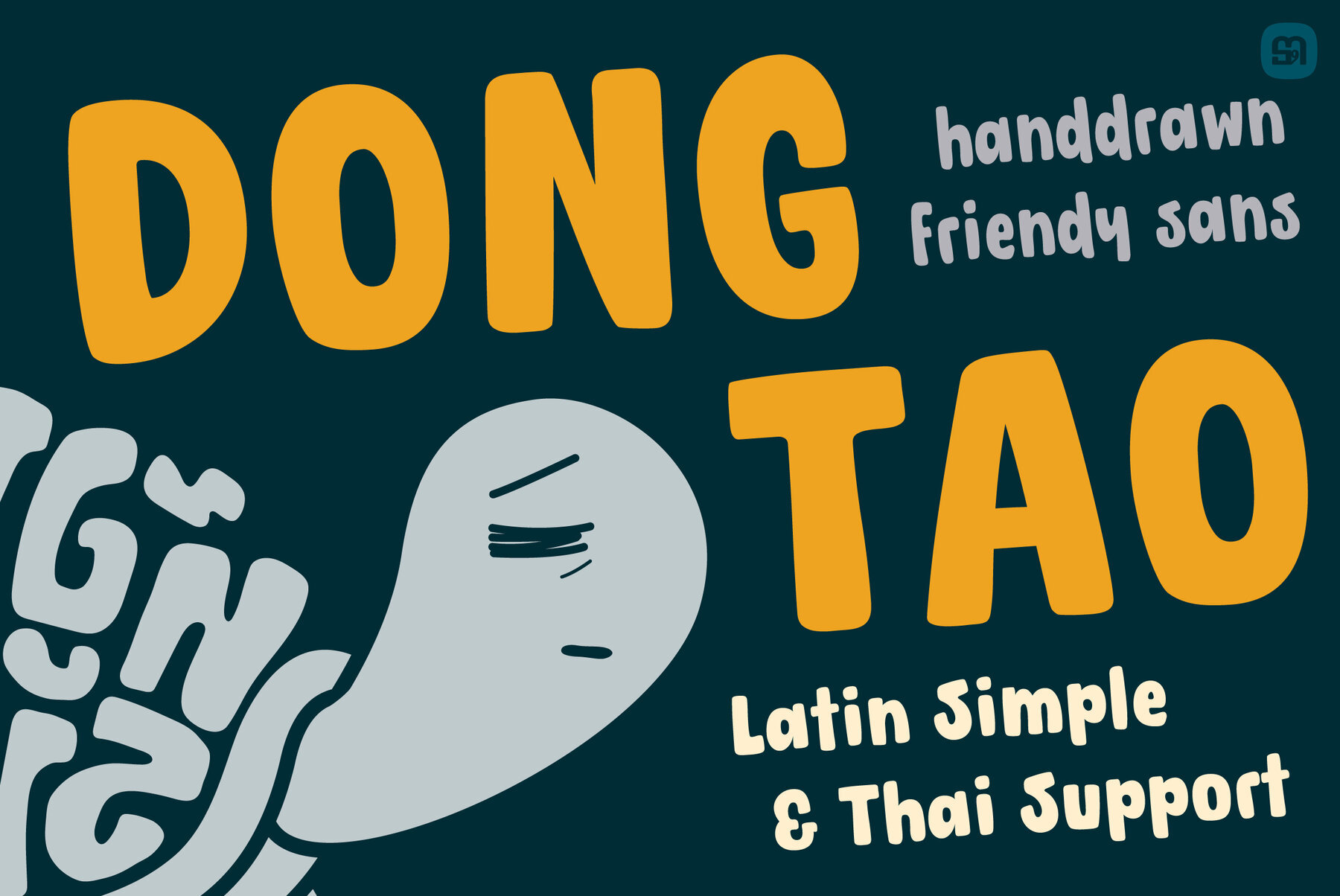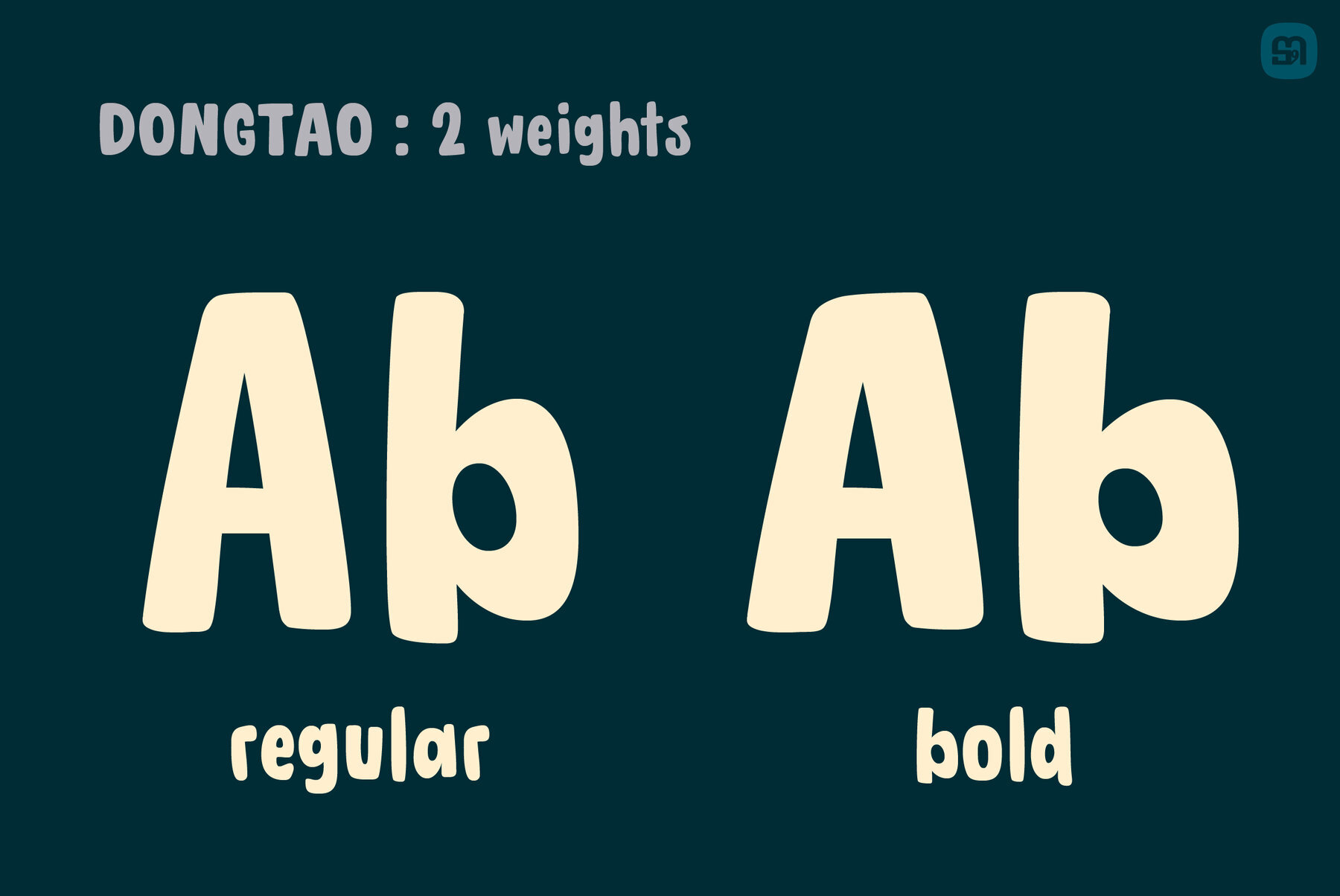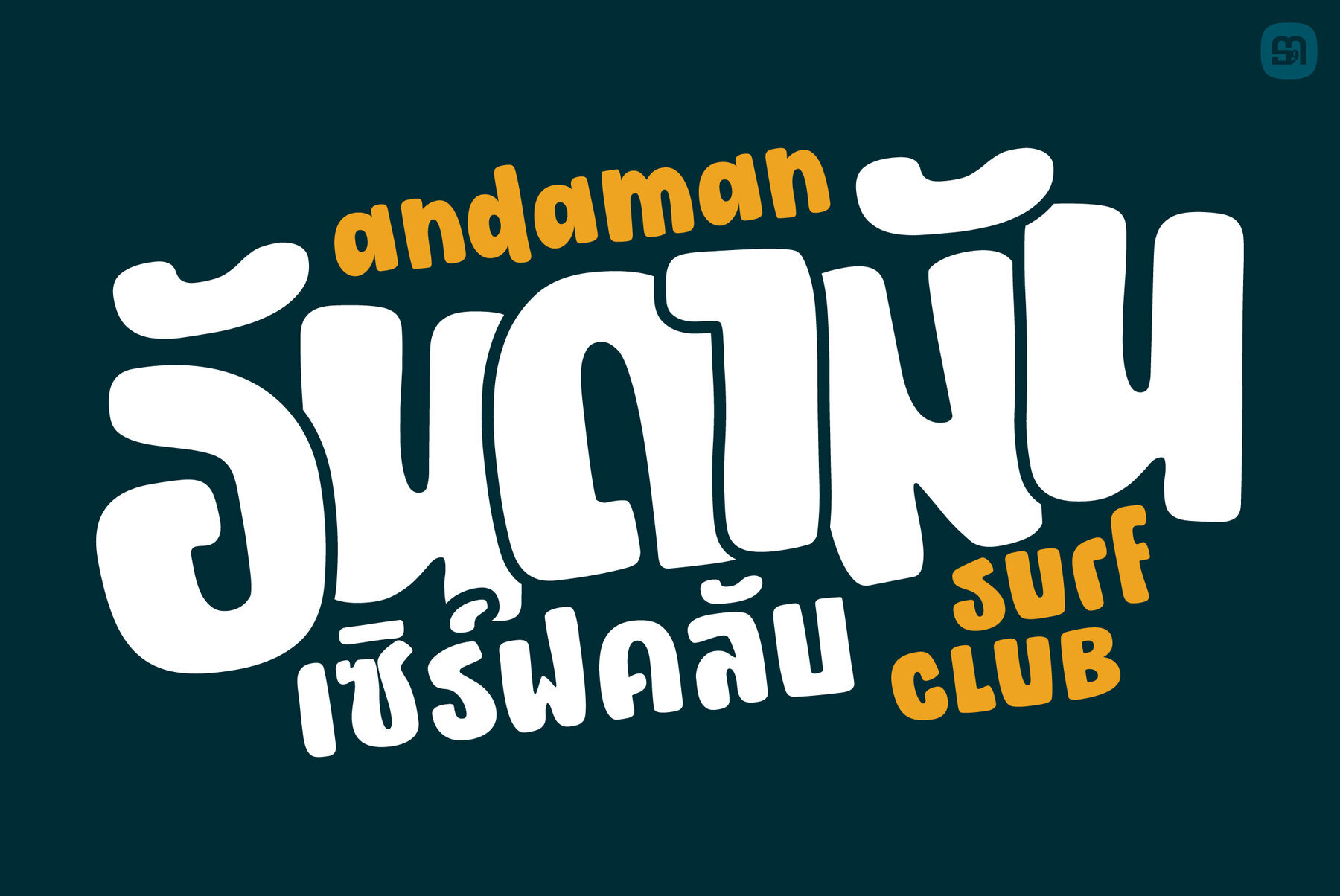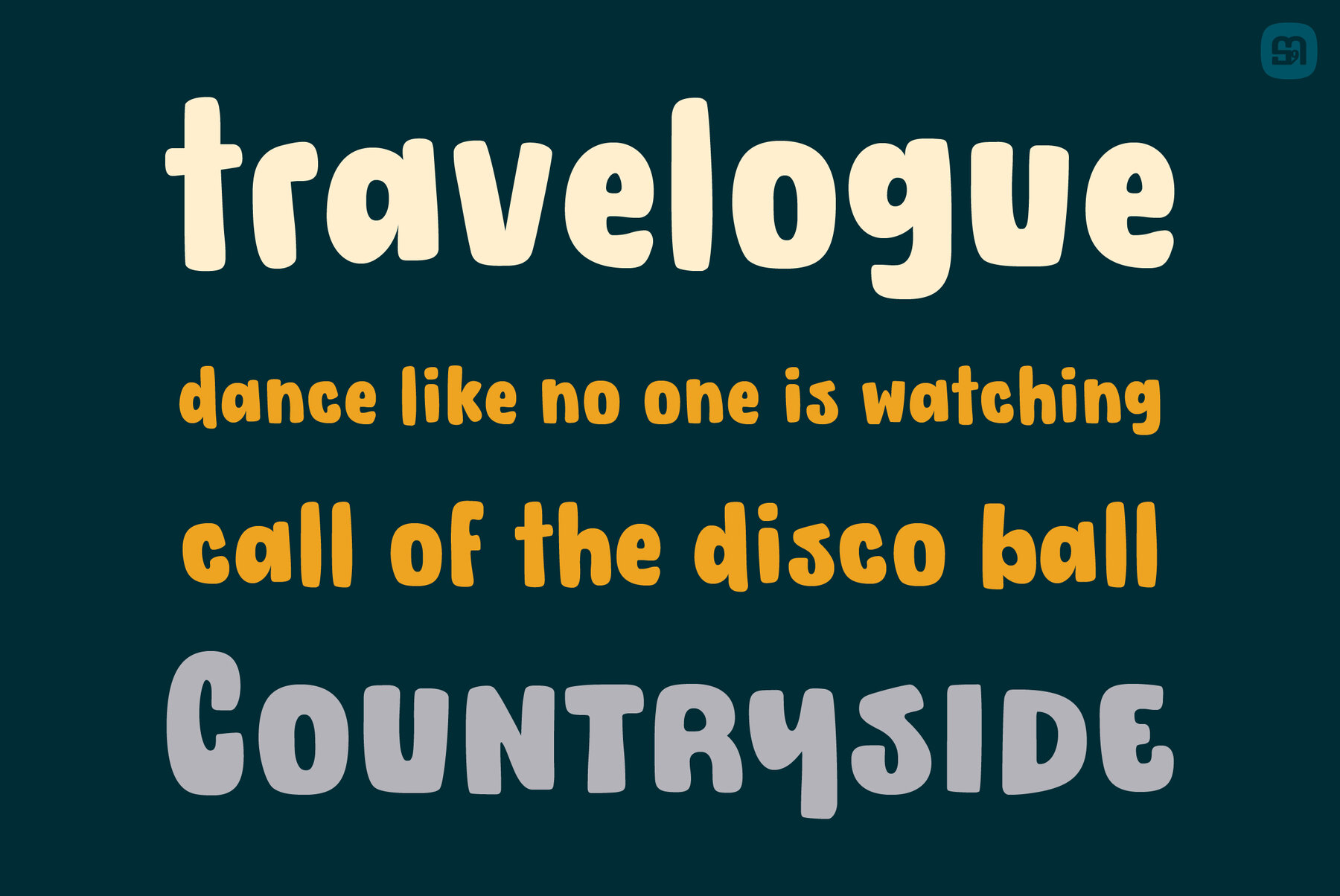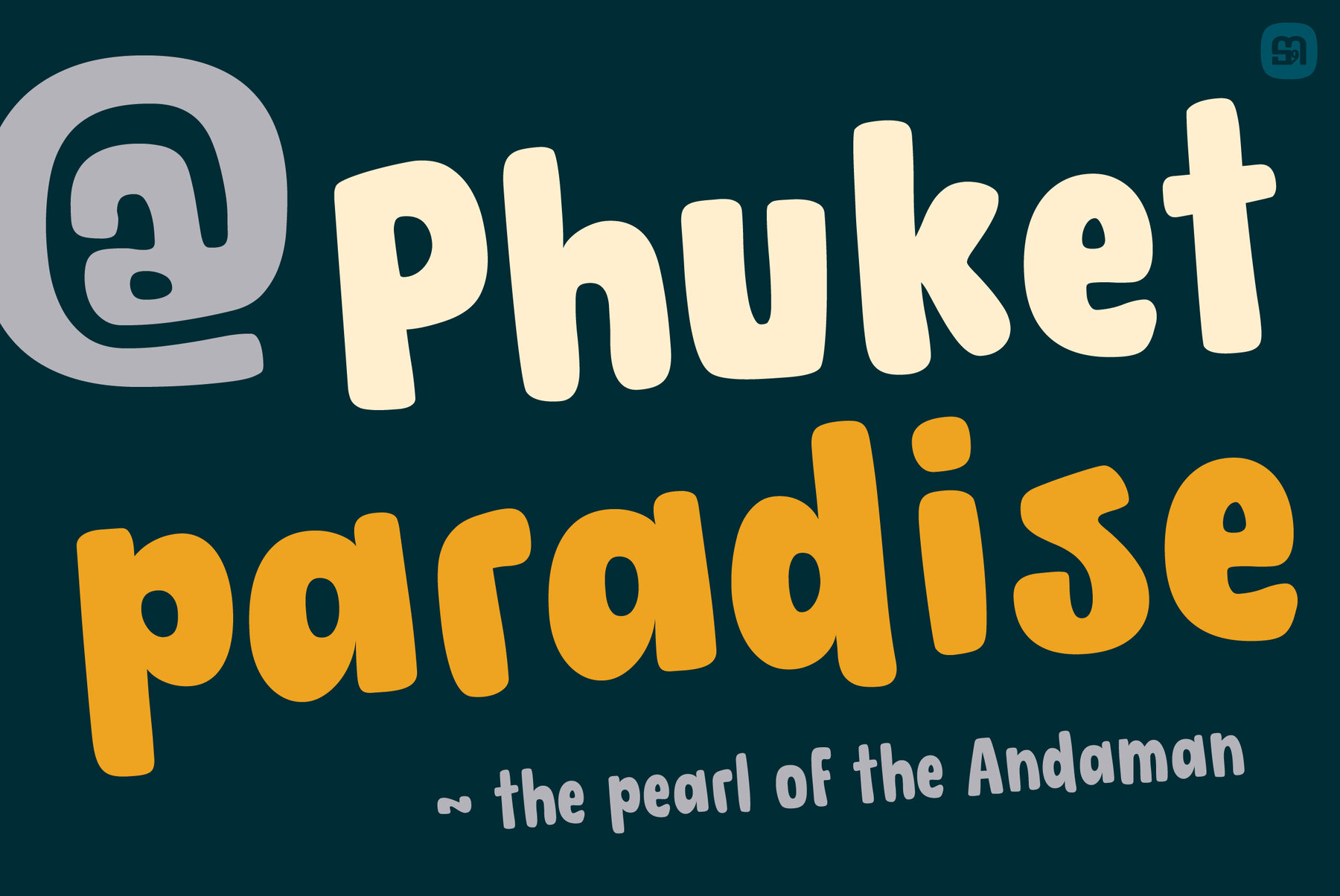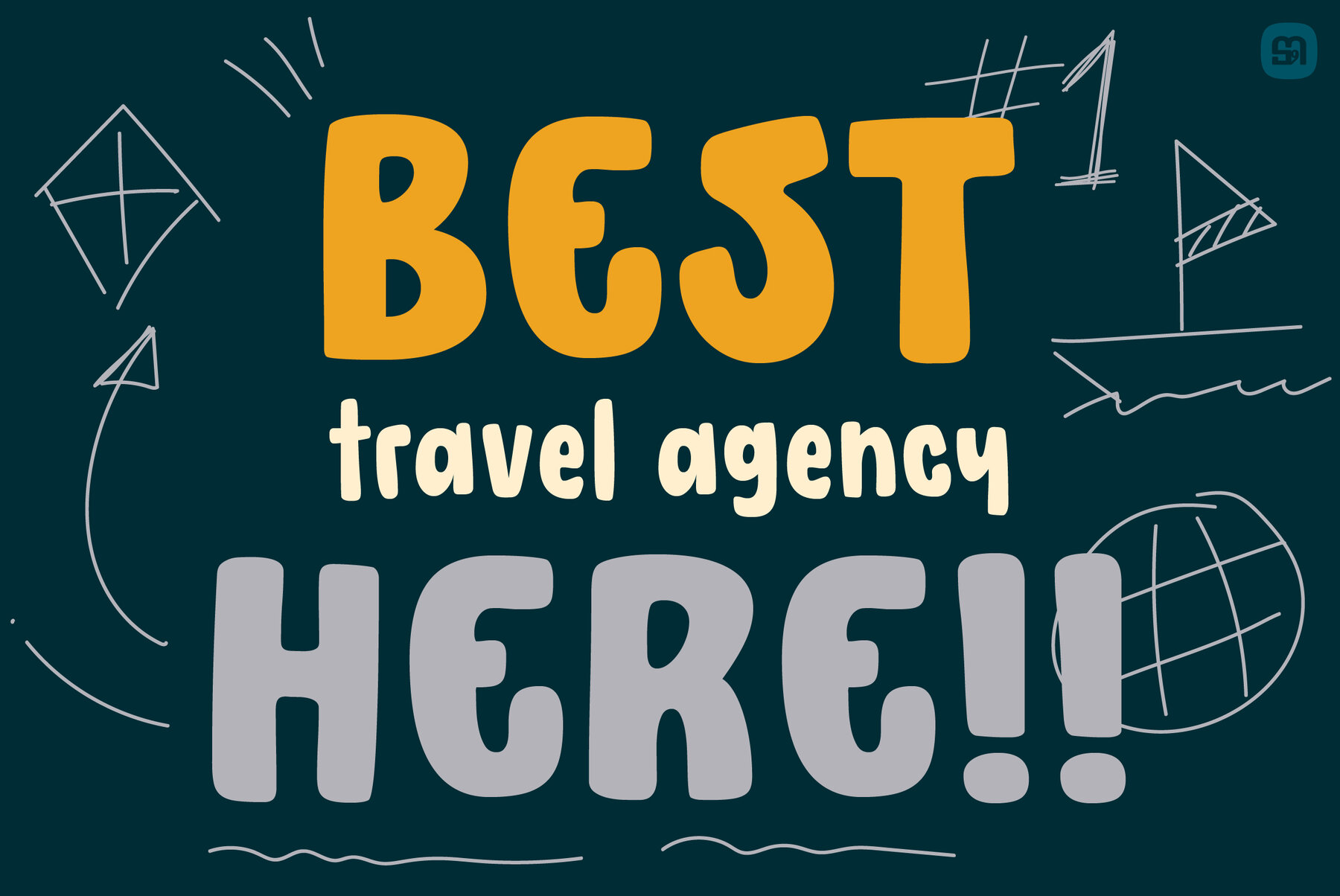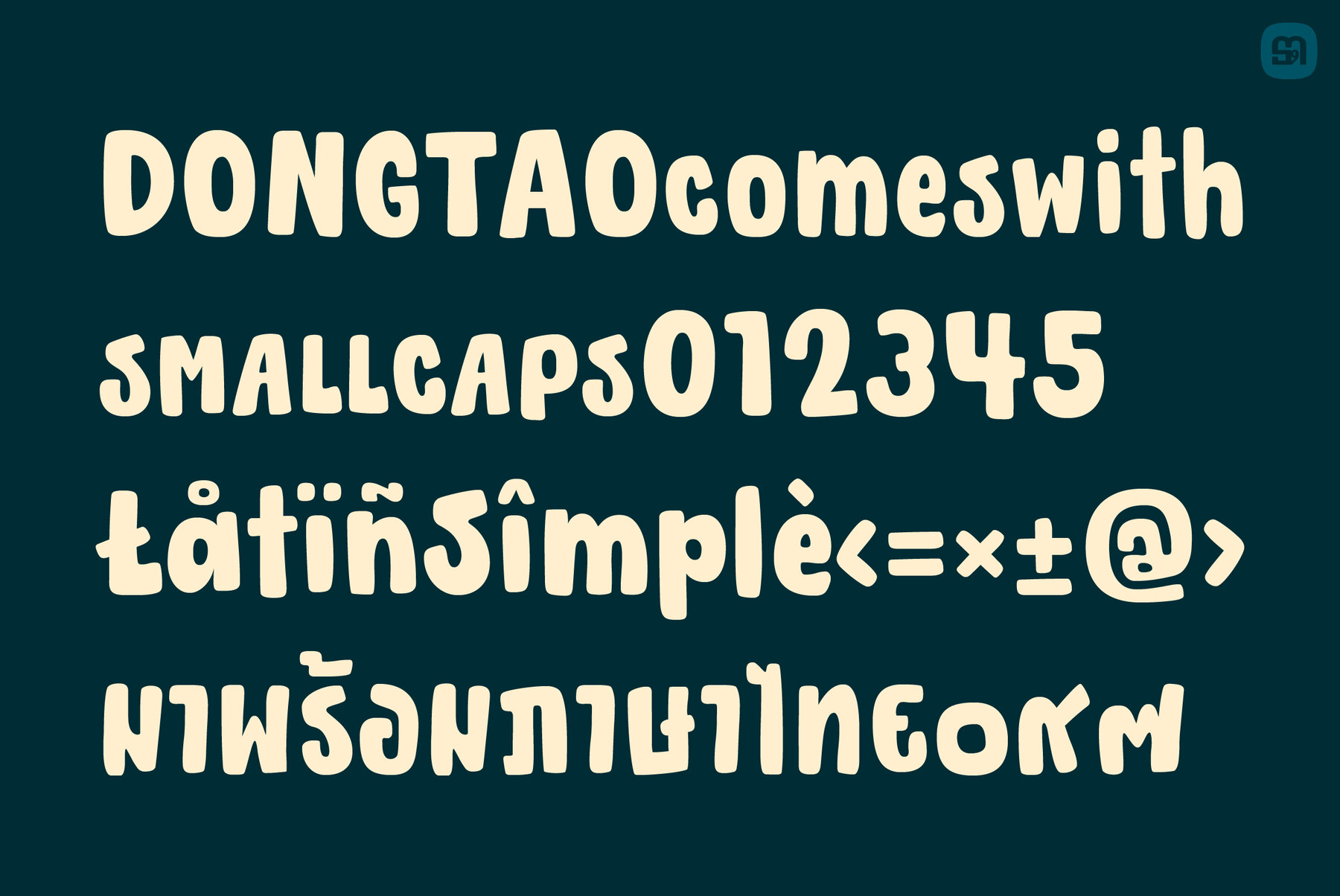
DONGTAO Font
Capture the essence of fun and authenticity with DONGTAO, a handcrafted display font designed to bring any children’s activity or school project to life.DONGTAO: A Playful Handwritten Display Font
Ideal for enhancing educational materials or adding a whimsical touch to any creative endeavor.